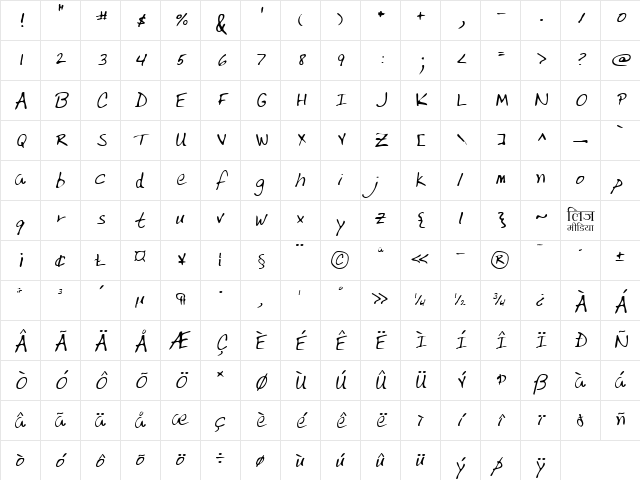
LEHN217 Regular Free Font
LEHN217 Regular
Design Context for LEHN217
LEHN217 is a composed and adaptable typeface that performs quietly and consistently across a wide range of design contexts.